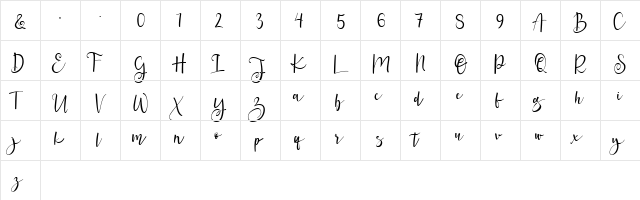
Berlina Script Personal Use Regular
| Designer | Abdul Azizul |
Design Context for Berlina Script Personal Use Typeface
Berlina Script Personal Use brings a calligraphic fluidity to the page — its connecting strokes and expressive curves give it an unmistakably human quality.